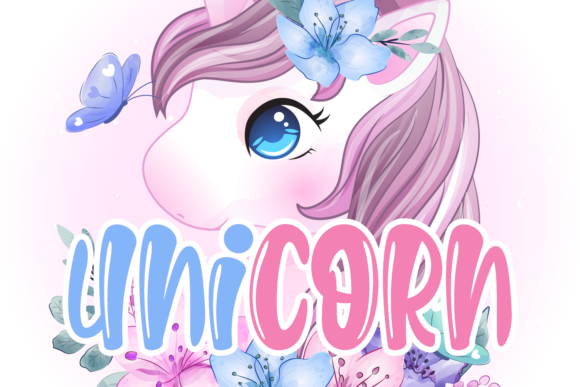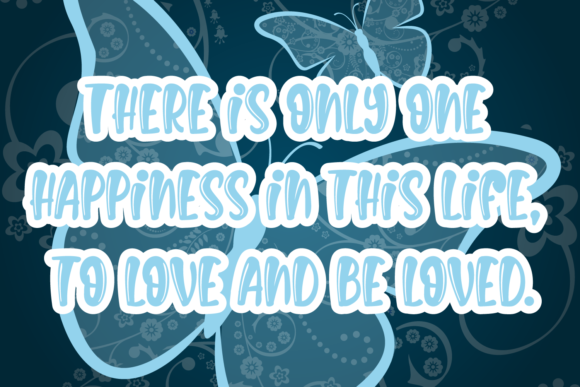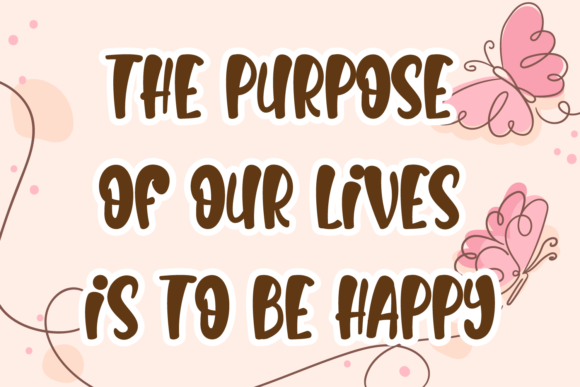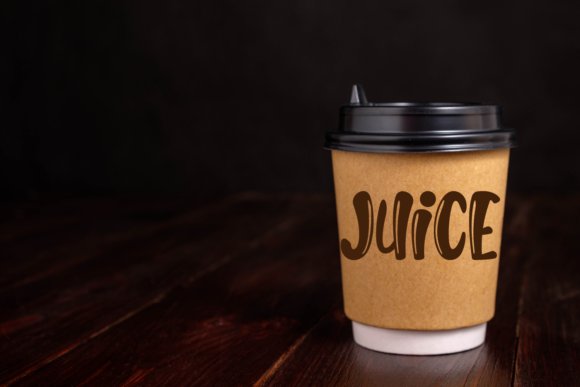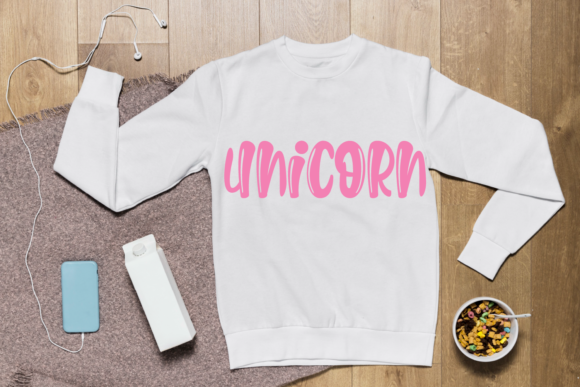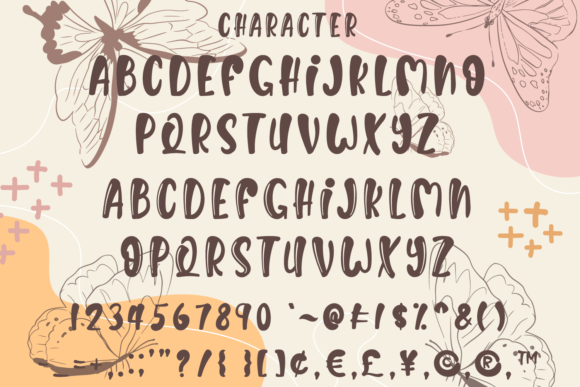
Introduction to Butterfly Fly Font
Butterfly Fly is an incredibly fun and bubbly display font.
It embodies playfulness and authenticity and is the perfect choice for any children activity or school project .
Butterfly Fly Font offers exceptional quality and versatility, making it a valuable addition to your design toolkit. Whether you’re creating for personal projects or commercial use, Butterfly Fly Font delivers professional results.